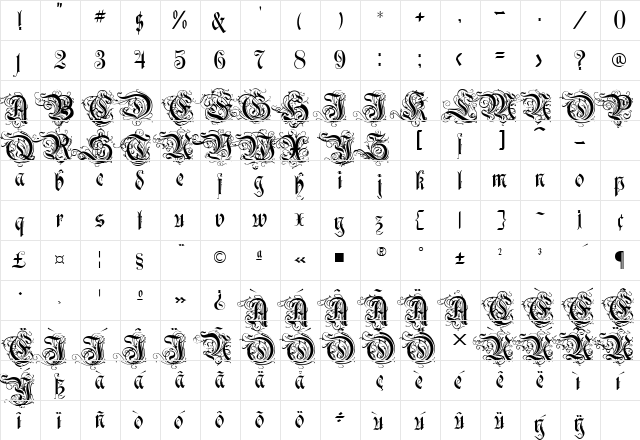
Rothenburg Decorative Regular
Design Context for Rothenburg Decorative Typeface
Rothenburg Decorative brings ornamental detail and strong personality to headlines and identities, where visual impact matters more than quiet functionality.
Font Pairing: Pair with a clean neutral sans-serif for body copy to let Rothenburg Decorative's character lead without overwhelming the composition.
Pro Tip: Treat Rothenburg Decorative as the centrepiece of your typographic hierarchy. One strong heading set in a decorative face can carry an entire layout.